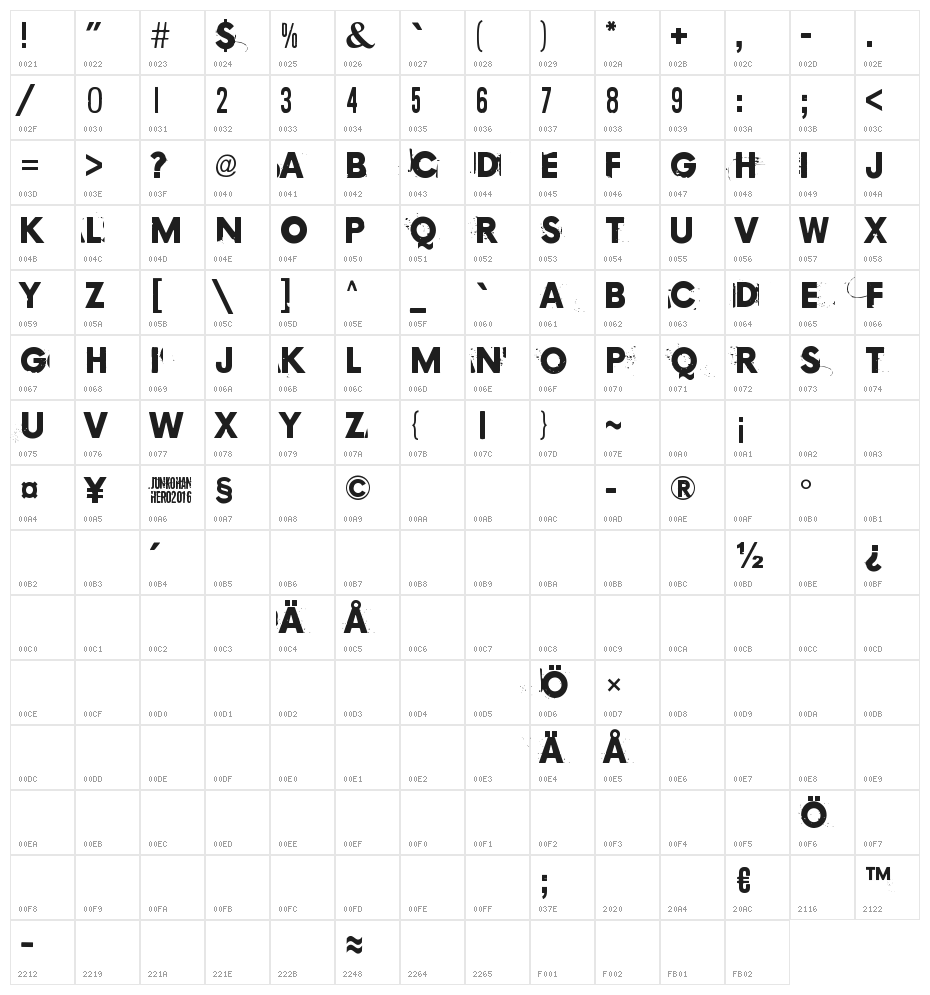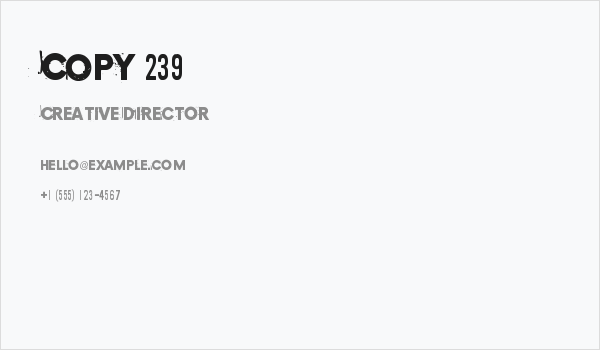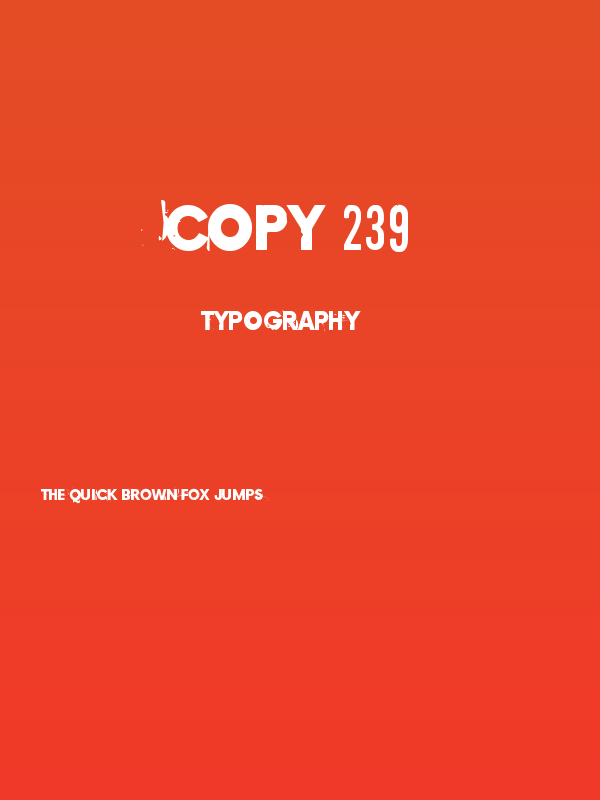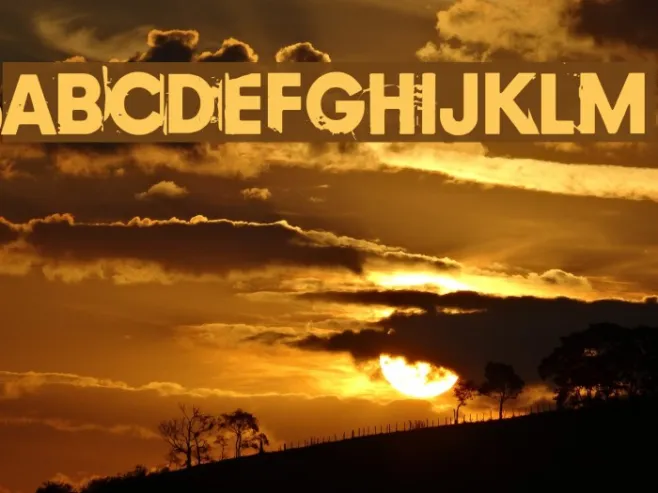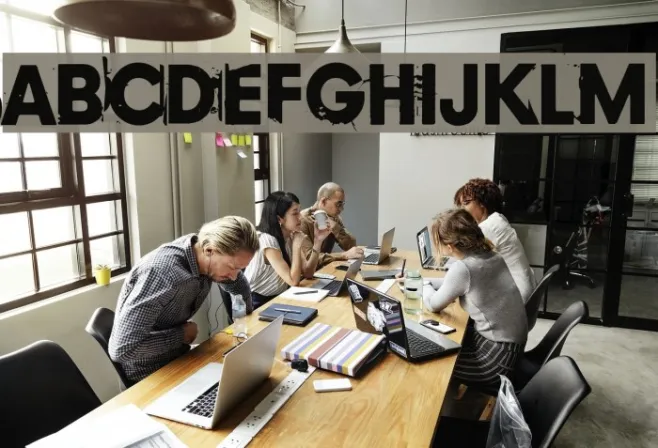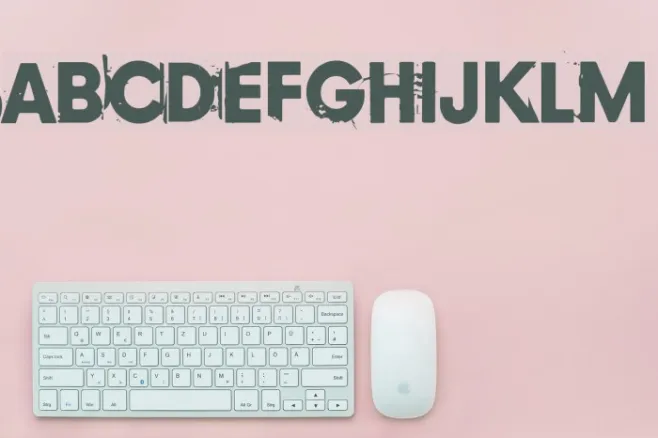
Copy 239 Font
Copy 239 Description
This font features a bold and distressed style, with a grunge effect applied to each character. The uppercase and lowercase letters are consistent in their rugged appearance, giving the font a raw and edgy feel. The numbers and special characters maintain the same distressed aesthetic, making the font suitable for designs that require a bold statement. The rough texture and uneven edges contribute to its unique and rebellious look, ideal for projects that aim to convey a sense of urgency or intensity.
| Overall Style | Grunge, Edgy |
| Proposed Projects | Ideal for music album covers, posters, streetwear branding, and edgy graphic designs. |